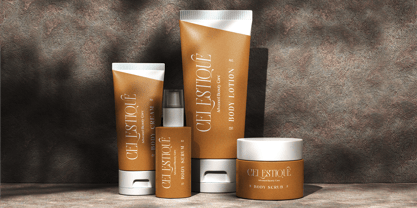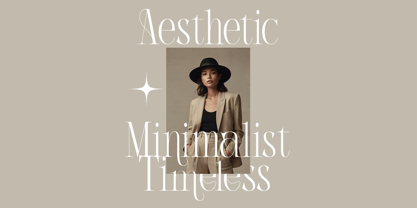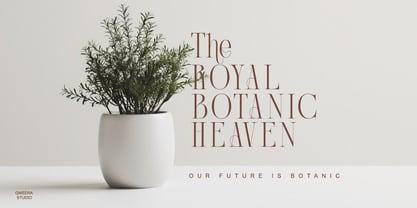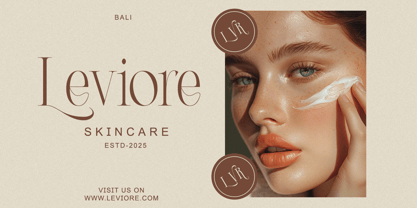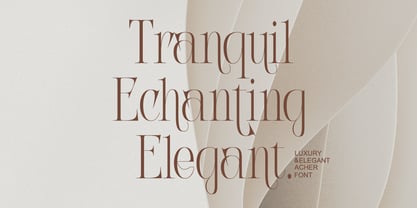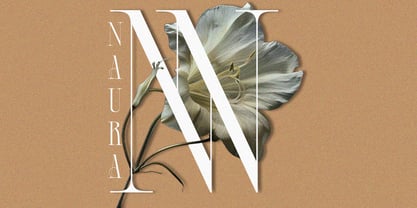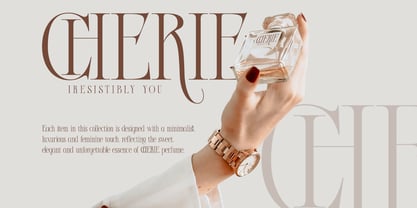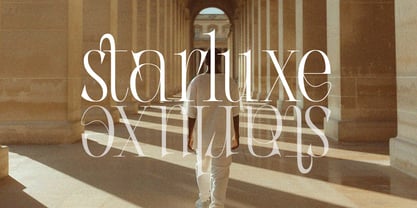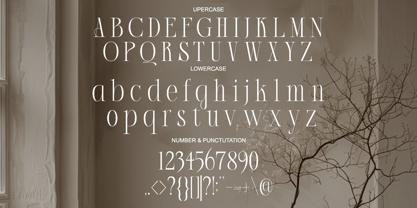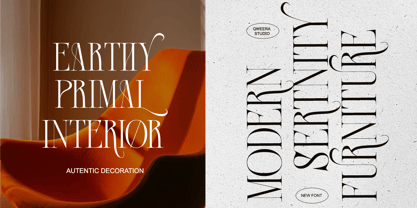
Acher
by Qweera Studio
The Acher Font Family was designed by Idhham Cholid Rikzano Yahya and published by Qweera Studio. Acher contains 2 styles and family package options. More about this family
Acher – Elegant Luxury Serif Font for Sophisticated Designs
Acher is more than just a font—it’s a symbol of elegance and luxury, designed to elevate your creative projects with timeless sophistication. With its regular and italic versions, Acher combines classic serif elegance with modern style, making it the perfect choice for branding, logo design, packaging, posters, and more. Whether you’re crafting a high-end logo or designing a luxurious packaging layout, this font ensures your work radiates class and refinement.
Where Elegance Meets Modern Luxury
Acher stands out with its graceful lines, exquisite details, and stylish alternates, offering endless creative possibilities. Its versatility makes it ideal for projects that demand a luxurious and elegant aesthetic, from corporate branding to editorial masterpieces. This font isn’t just a tool—it’s a statement of sophistication and design excellence.
Key Features
• Elegant Luxury Serif Design – Perfect for branding, logo design, packaging, and posters.
• Regular & Italic Versions – Versatile options for a variety of design needs.
• Stylish Alternates & Ligatures – Add a unique and personalized touch to your designs.
• Timeless Sophistication – Ensures your projects stand out with elegance and class.
• Multilingual Support – Compatible with over 20 languages, including English, French, German, Spanish, and more.
Elevate Your Designs with Acher Acher isn’t just a font—it’s a tool to transform your creative projects into luxurious, timeless masterpieces. Whether you’re designing for print, digital, or branding, this font ensures your work stands out with unmatched elegance and sophistication.
Designers: Idhham Cholid Rikzano Yahya